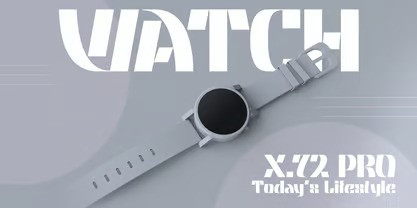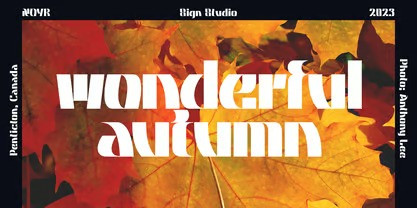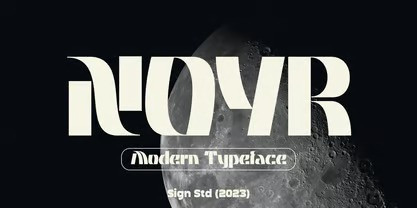
Noyr Font
Noyr Font is a font for display that requires a modern/futuristic appearance. Uppercase and Lowercase are available equipped with standard symbols and multilingual characters. This font is designed to be dynamic with today’s style. All have been PUA Encoded. You can easily access each character in the software in general.